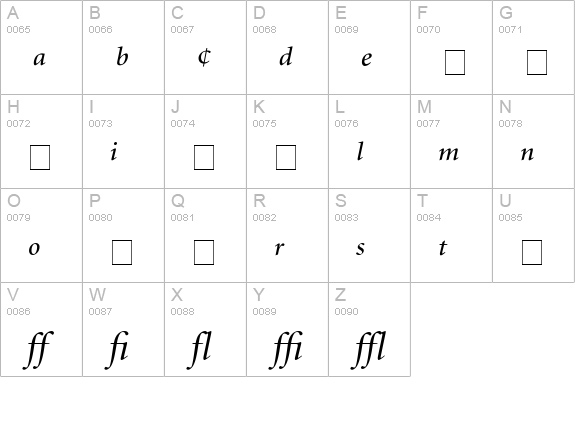
Atlantix Pro Display SSi Display Italic is a distinctive, italic variant in the Atlantix typeface family \xE2\x80\x94 well suited to design and typography projects.
Atlantix Pro Display SSi Display Italic font is a stunning typeface that exudes elegance and sophistication. Its sleek and modern design makes it perfect for a wide range of creative projects, from branding to advertising to editorial design. The italic style adds a touch of flair and dynamism to any text, making it stand out and capture attention. What makes Atlantix Pro Display SSi Display Italic font even more appealing is that it is freely available for download at FontsMarket.com. This means that you can easily access this beautiful font and use it in your projects without any cost. Whether you are a professional designer looking for a high-quality font or a hobbyist looking to add some style to your creations, Atlantix Pro Display SSi Display Italic font is a fantastic choice that won't break the bank. Download it today and elevate your designs with this sophisticated and versatile typeface.